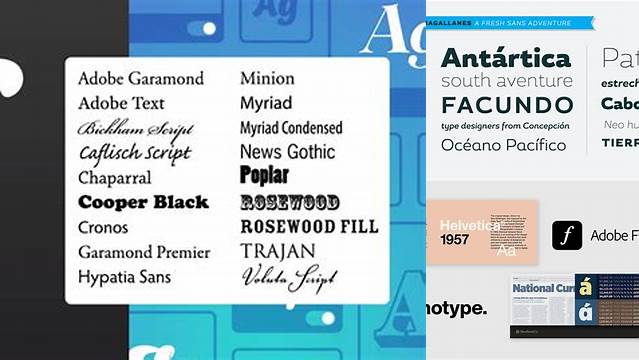
Adobe Fonts & Latinotype: A Designer's Guide
Hey guys! Ever feel like your designs are missing that certain something? Chances are, it might be the fonts you're using. And when it comes to killer typography, Adobe Fonts and Latinotype are two names that should be on your radar. Let's dive deep into why these resources are a goldmine for designers and how you can use them to elevate your projects. So, buckle up, because we're about to embark on a typographic adventure!
Understanding the Power of Adobe Fonts
Adobe Fonts, previously known as Typekit, is a game-changer for designers. It's a vast library of high-quality fonts that are included with most Adobe Creative Cloud subscriptions. This means you get access to thousands of fonts without having to purchase individual licenses. The beauty of Adobe Fonts lies in its seamless integration with Adobe applications like Photoshop, Illustrator, and InDesign. You can activate fonts with a simple click, and they're instantly available in your design software. No more downloading, installing, or managing font files manually! This streamlined workflow saves you time and keeps your font library organized. Beyond the convenience, Adobe Fonts offers a diverse range of styles, from classic serif and sans-serif faces to bold display fonts and elegant scripts. Whether you're designing a website, a logo, or a print brochure, you'll find the perfect typeface to match your project's aesthetic. Plus, Adobe Fonts is constantly updated with new additions, ensuring you always have fresh options to explore.
Exploring the Latinotype Foundry
Now, let's talk about Latinotype. This independent type foundry, based in Chile, is renowned for its original and contemporary Latin American-influenced designs. Latinotype fonts are characterized by their unique personality and attention to detail. They often feature distinctive letterforms, playful quirks, and a warm, expressive feel. If you're looking for fonts that stand out from the crowd and convey a sense of authenticity, Latinotype is the place to go. Their catalog includes a wide array of typefaces, ranging from elegant serifs and versatile sans-serifs to eye-catching display fonts and charming scripts. Latinotype is particularly strong in designing fonts that support Latin-based languages, with extensive character sets and diacritic marks. This makes them an excellent choice for projects targeting international audiences or requiring multilingual typography. By choosing Latinotype fonts, you're not just getting a typeface; you're investing in a work of art crafted with passion and expertise.
Adobe Fonts vs. Latinotype: Key Differences and When to Use Each
Okay, so both Adobe Fonts and Latinotype offer amazing typefaces, but how do you know which one to choose? Let's break down the key differences. Adobe Fonts is a subscription-based service integrated with Adobe Creative Cloud, providing access to a massive library of fonts from various foundries, including Latinotype. It's a convenient option for designers who already use Adobe software and want a wide selection of fonts at their fingertips. On the other hand, Latinotype is an independent type foundry that specializes in original, Latin American-inspired designs. Their fonts are typically purchased individually or in families. When should you use Adobe Fonts? If you need a broad range of fonts for different projects, and you're already an Adobe Creative Cloud user, Adobe Fonts is a no-brainer. The seamless integration and extensive library make it a fantastic resource for everyday design work. When should you choose Latinotype? If you're looking for unique, expressive typefaces with a distinct Latin American flavor, Latinotype is the answer. Their fonts are perfect for projects that require a touch of personality and authenticity. Think branding for a Latin American restaurant, a travel brochure showcasing South American destinations, or a book cover with a cultural theme. Ultimately, the best choice depends on your specific needs and preferences. Many designers use both Adobe Fonts and Latinotype to build a versatile font library that caters to a variety of design styles.
Integrating Latinotype Fonts with Adobe Fonts
Here's a cool tip: you can actually use some Latinotype fonts within Adobe Fonts! Latinotype has partnered with Adobe Fonts to make a selection of their popular typefaces available to Creative Cloud subscribers. This means you can enjoy the convenience of Adobe Fonts while still accessing the unique designs of Latinotype. To find Latinotype fonts in Adobe Fonts, simply search for "Latinotype" in the Adobe Fonts browser. You'll see a curated collection of their typefaces that are included in your subscription. This integration is a win-win for designers. It allows you to easily experiment with Latinotype fonts in your projects and discover new favorites without having to purchase them individually. If you fall in love with a Latinotype font that's not available on Adobe Fonts, you can always purchase it directly from the Latinotype website.
Best Practices for Using Adobe Fonts and Latinotype in Design Projects
Alright, you've got access to Adobe Fonts and Latinotype – now what? Here are some best practices to keep in mind when incorporating these fonts into your design projects. First and foremost, prioritize readability. No matter how beautiful a font is, it's useless if it's difficult to read. Choose typefaces that are appropriate for the context and the target audience. For body text, opt for clean and legible fonts, such as sans-serifs or classic serifs. Save the more decorative fonts for headings and display elements. Next, pay attention to hierarchy. Use different font sizes, weights, and styles to create a visual hierarchy that guides the reader's eye. This will make your designs more engaging and easier to navigate. Don't be afraid to experiment with font pairings. Combining different typefaces can add visual interest and personality to your designs. However, it's important to choose fonts that complement each other. A good rule of thumb is to pair a serif font with a sans-serif font, or to use fonts from the same family but with different weights. Consider the tone and message of your project. The fonts you choose should reflect the overall mood and personality of your design. For example, a formal event invitation might call for an elegant serif font, while a playful children's book might benefit from a whimsical script font. And finally, always test your designs across different devices and platforms. What looks great on your computer screen might not look as good on a mobile phone or in print. By following these best practices, you can ensure that your typography is both beautiful and effective.
Font Pairing Strategies with Adobe Fonts and Latinotype
Font pairing is an art, guys! It's about finding the perfect harmony between two or more typefaces to create a visually appealing and cohesive design. When working with Adobe Fonts and Latinotype, you have a wealth of options to choose from, which can be both exciting and overwhelming. So, let's break down some font pairing strategies. A classic approach is to pair a serif font with a sans-serif font. This creates a visual contrast that is both elegant and readable. For example, you could pair a Latinotype serif like the **